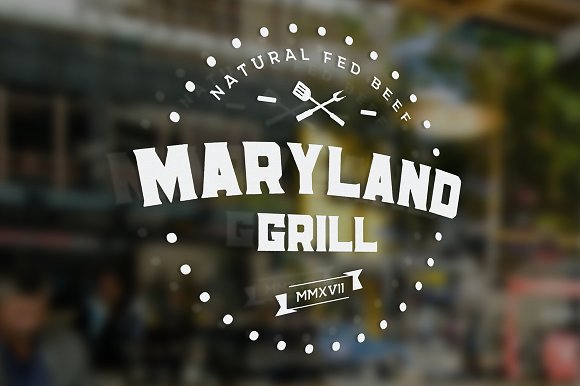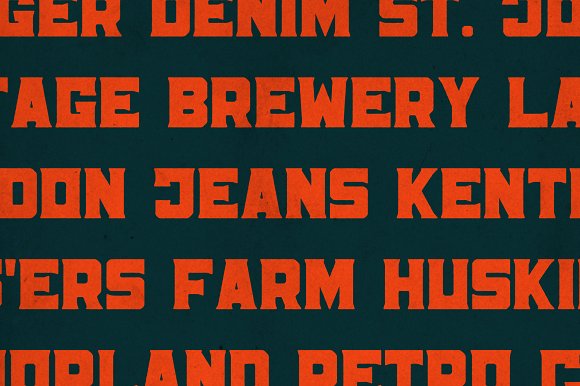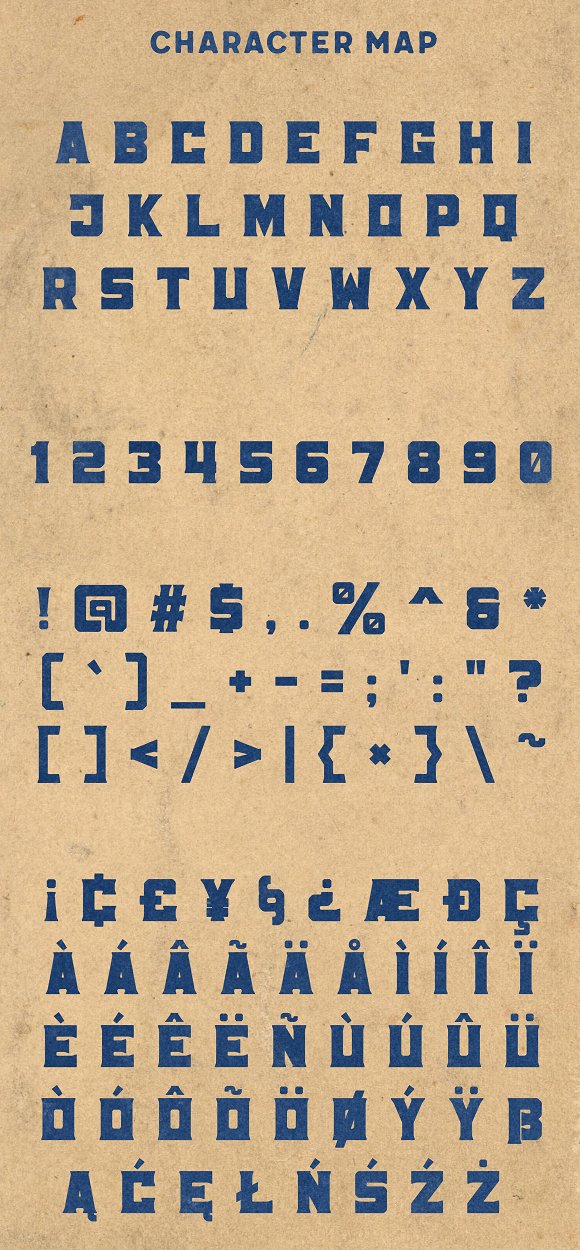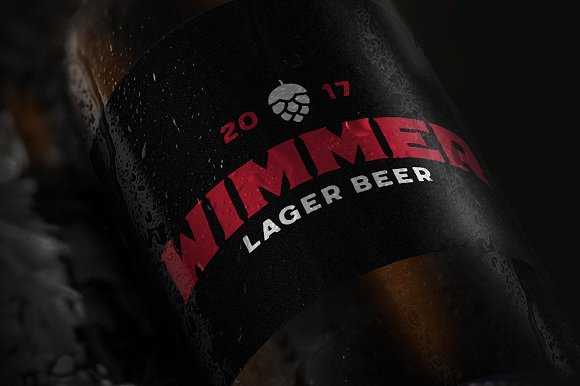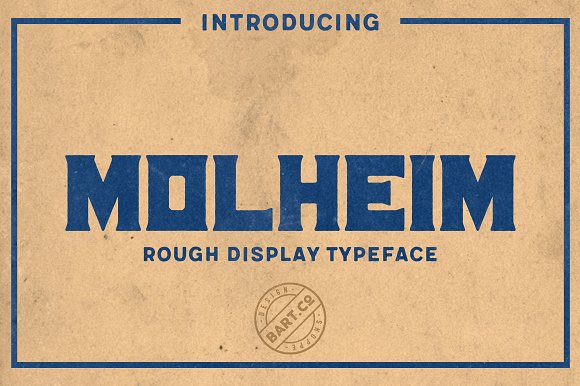
Molheim Typeface
Molheim Rough is a vintage display commercial art-inspired serif font. This typeface is great for logos, titles, signs, labels, brandings and more. If You want to add retro touch to Your design – Molheim is for You!